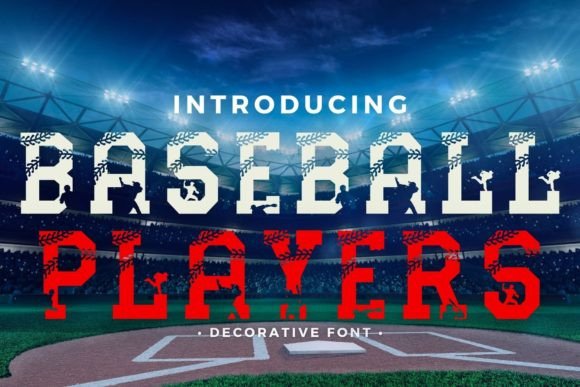
Prepare to step up to the plate with Baseball Players Font, the ultimate font for all your creative endeavors! This sporty decorative font, crafted by the masterminds at Brown Cupple Fonts, is a grand slam that will knock your designs out of the park.
Unleash your imagination and let Baseball Players Font ignite your vision. Picture it adorning your logotype, captivating headlines, and elevating your corporate identity to new heights. The possibilities are endless, from the bustling apparel industry to bold posters that demand attention.
Let Baseball Players Font be the MVP of your design team, hitting a home run every time you use it. Whether you're creating music album covers that rock, movie posters that reel in audiences, or games that keep players on the edge of their seats, this font is your secret weapon.
Dive into the world of magazines, books, and comics, where Baseball Players Font brings your words to life. Its playful spirit adds a touch of whimsy to any creation, captivating readers and igniting their imaginations.
Take your designs to the next level with Baseball Players Font. Join the ranks of creative all-stars who have embraced its charm. Get ready to make your mark, one pitch-perfect design at a time.